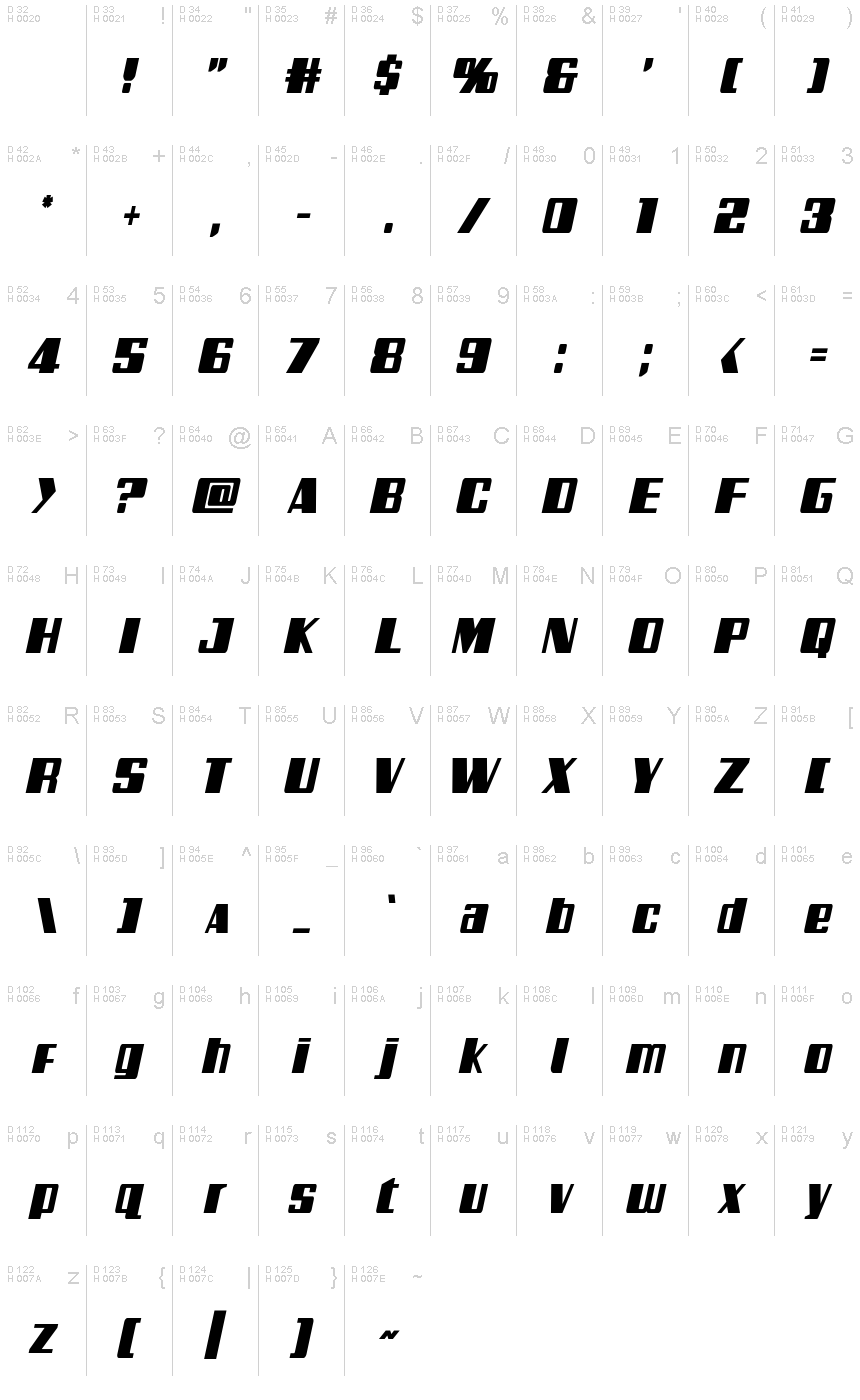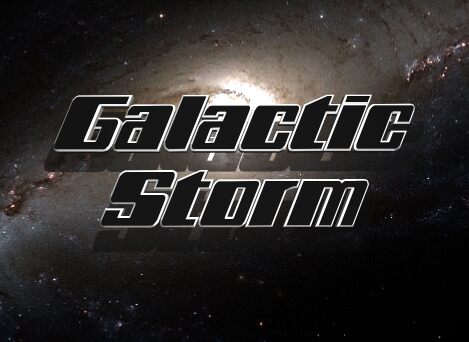
Galactic Storm Condensed Ital
Galactic Storm Condensed Italic font by Iconian Fonts is a bold, dynamic typeface with a futuristic feel. This sans-serif display font has an aggressive mood thanks to which it transmits an unusual tone. Letters are narrow, italicized, and have angular edges with high contrast and irregular widths. Visual uniqueness is maximized when this free font is used in capital letters.
The condensed italic style of Galactic Storm makes it suitable for edgy logos and aggressive branding designs. Other possible applications include posters, web interfaces, video games, book covers, magazine covers, sports uniforms, or any other use case where strength can be visually transmitted through typography alone.